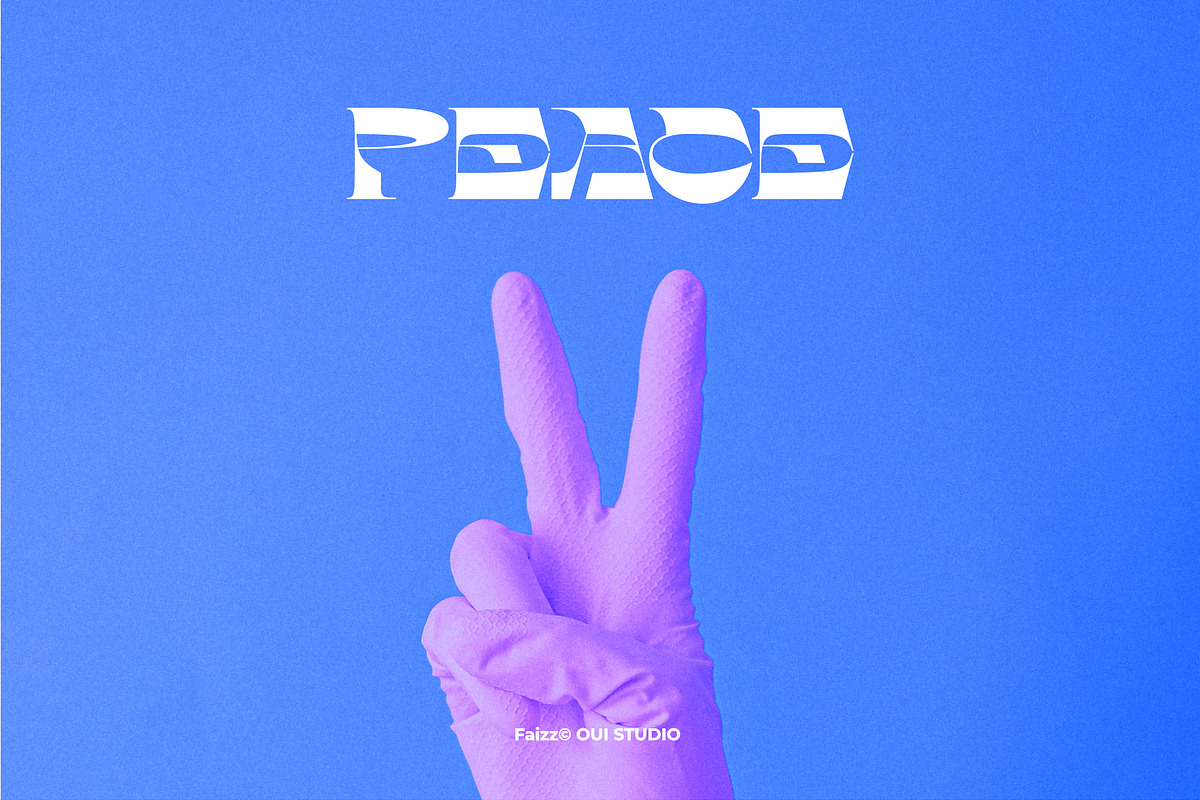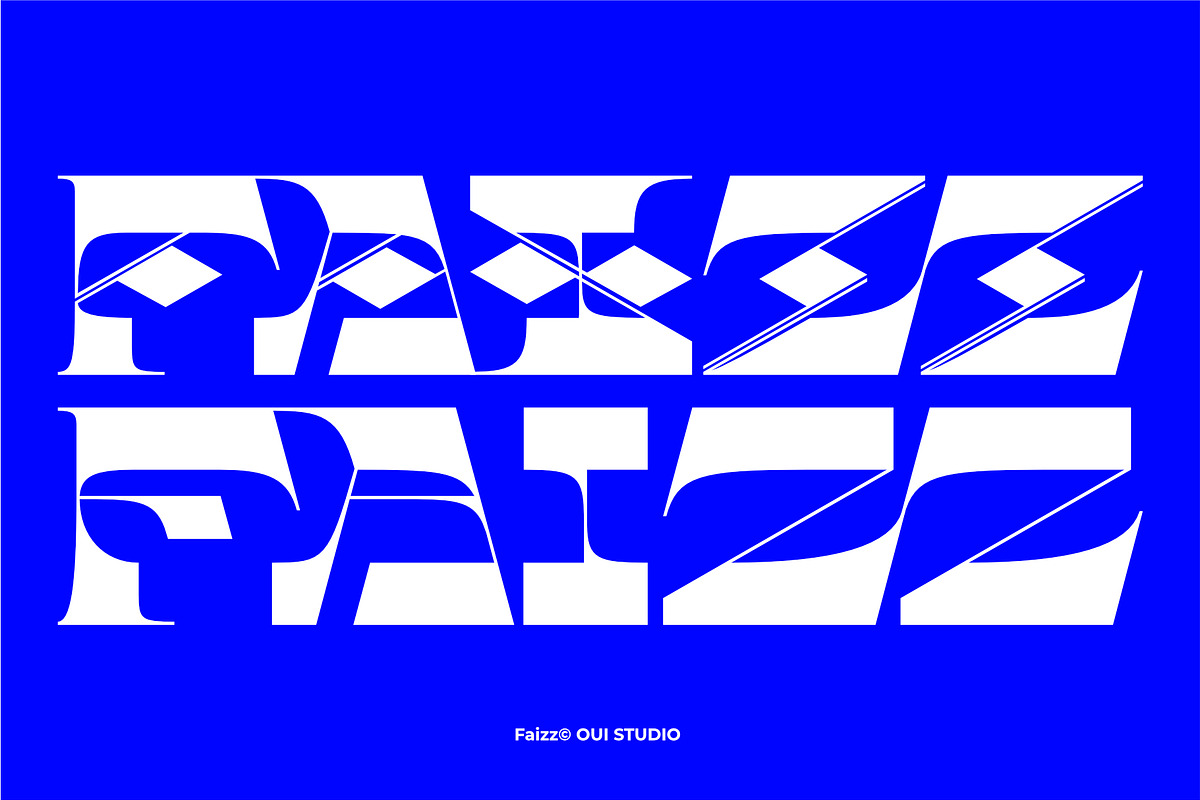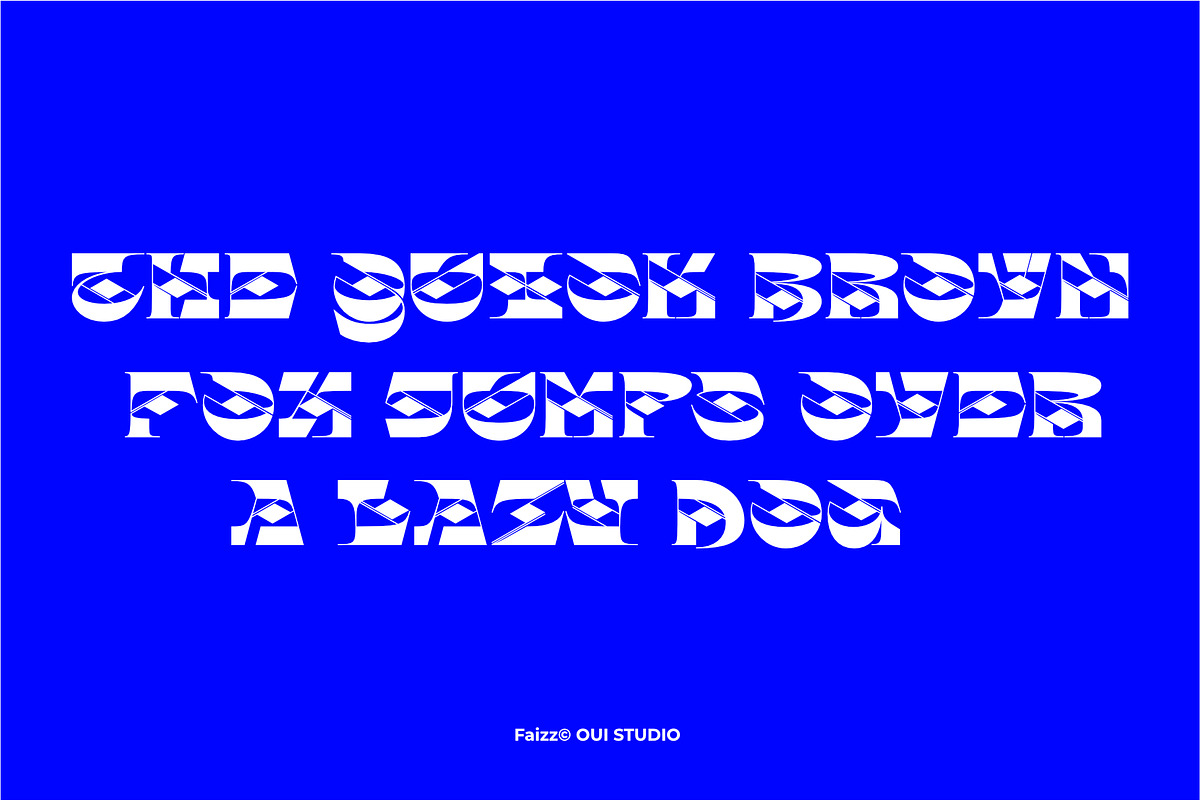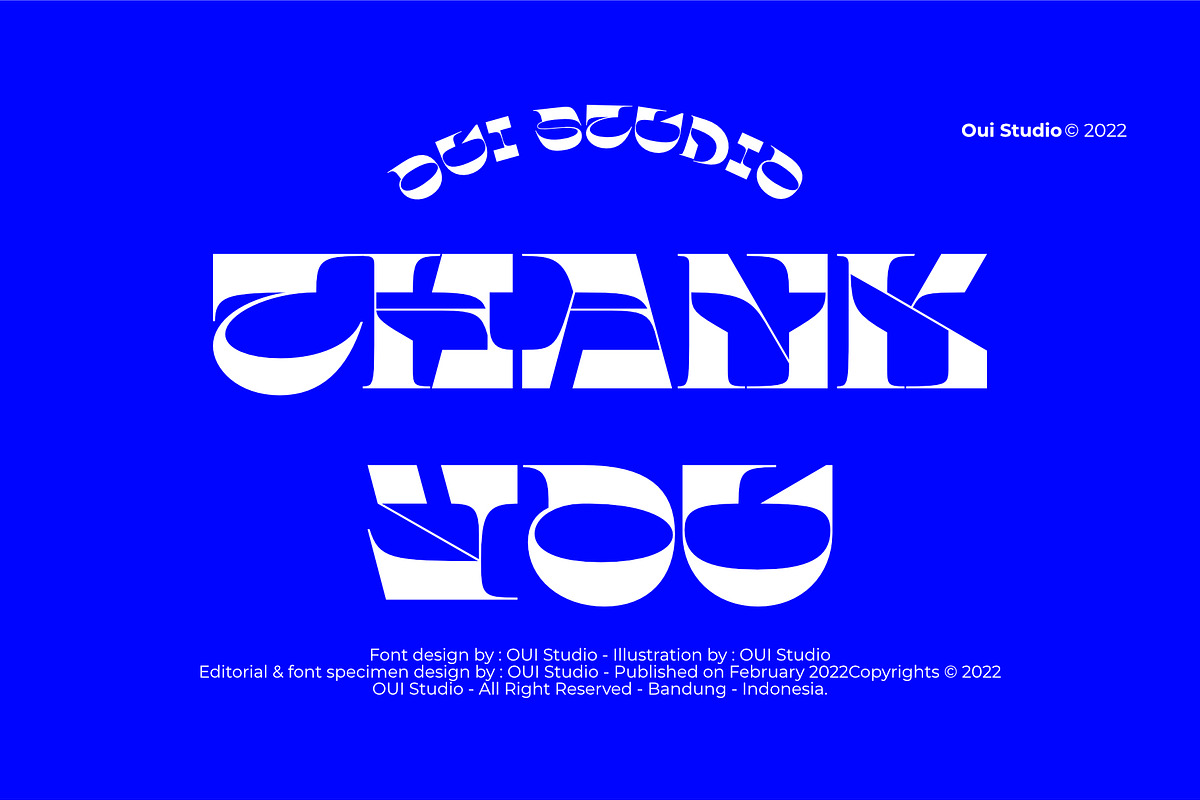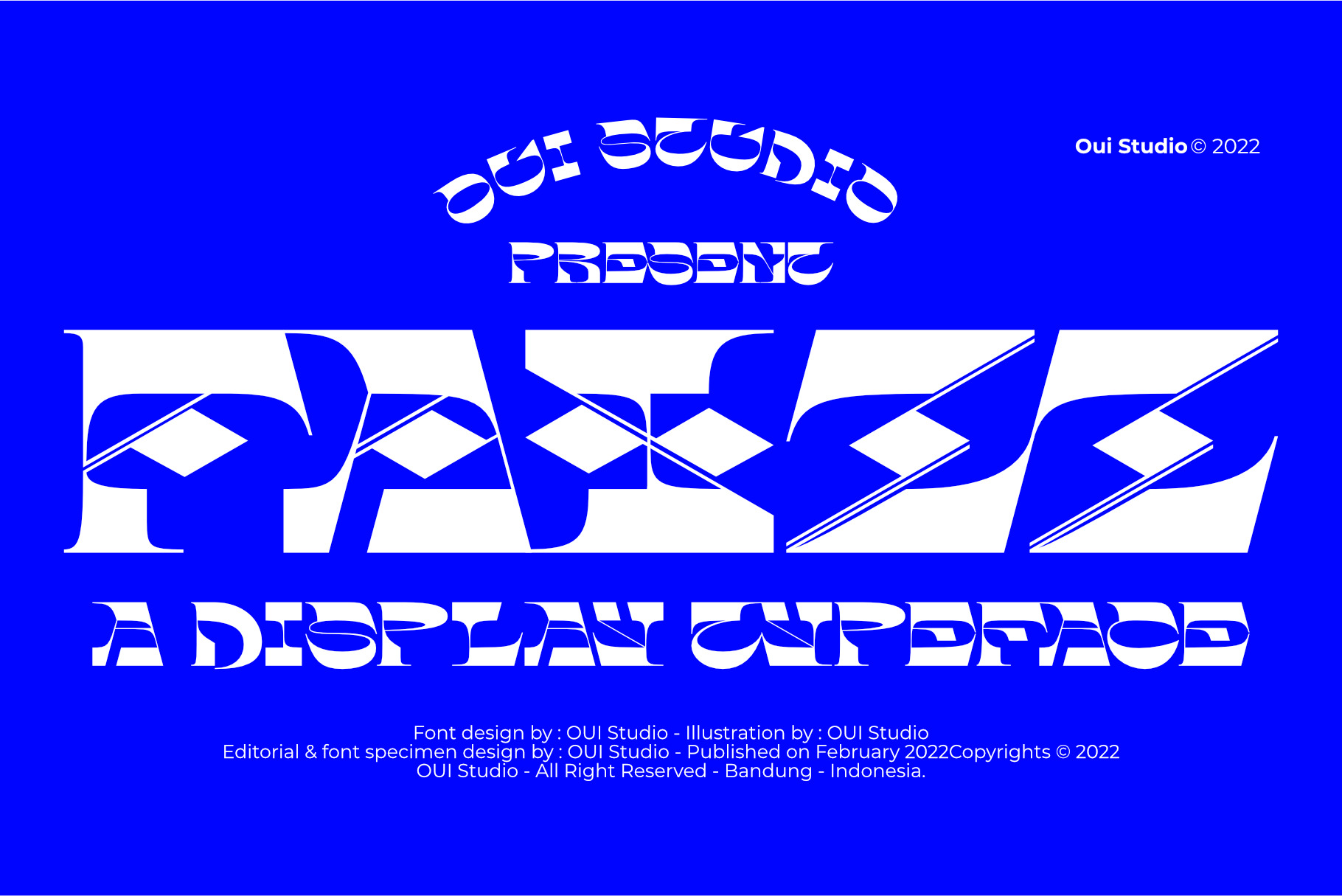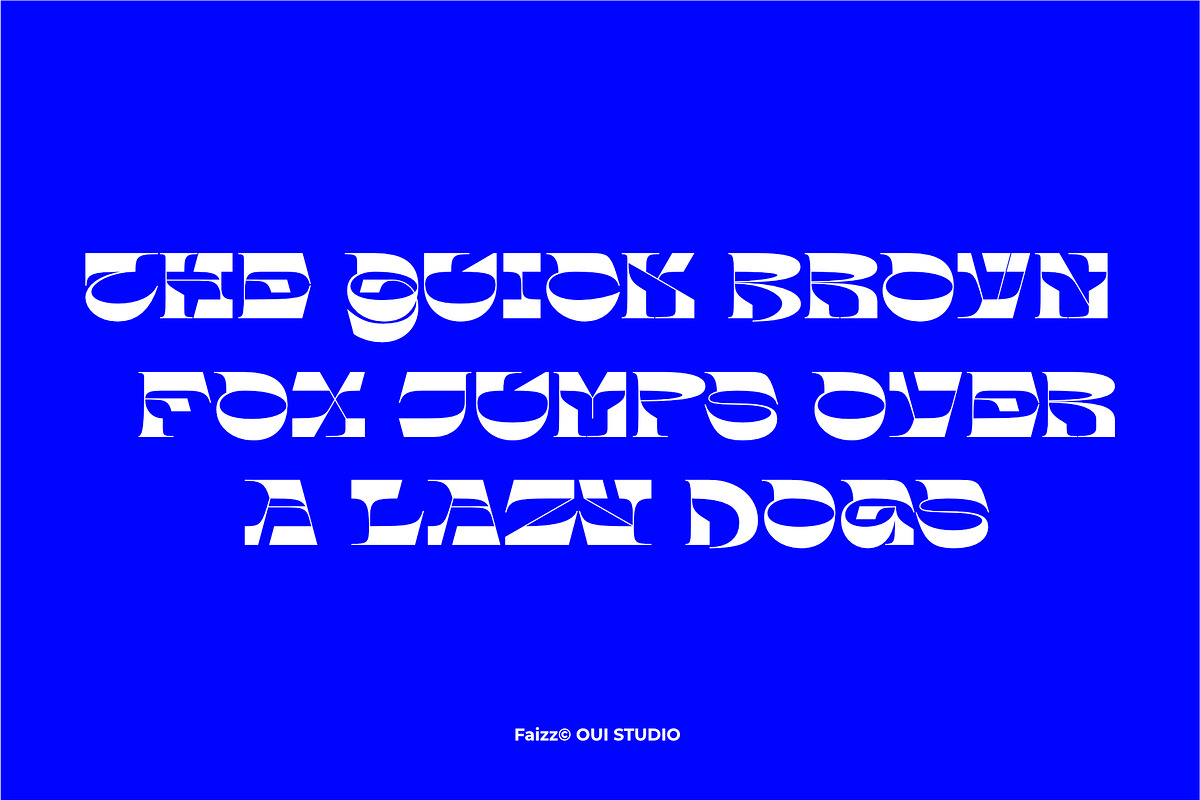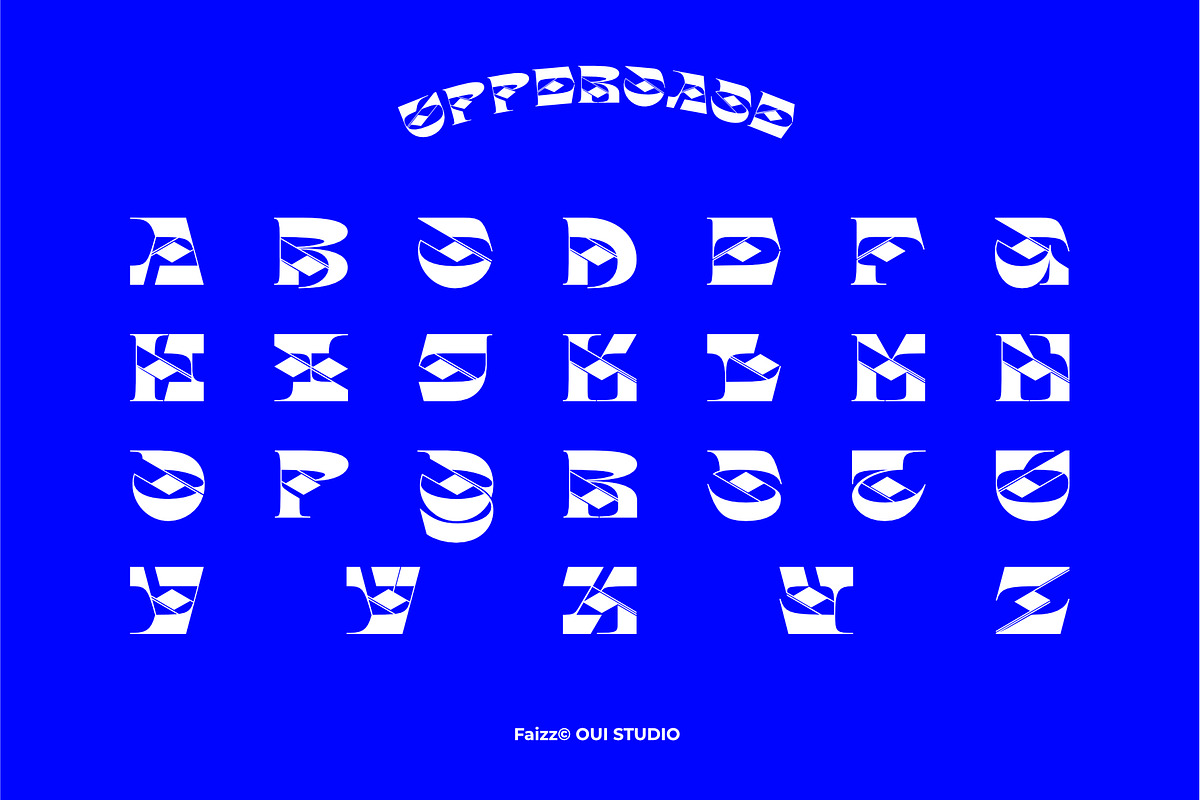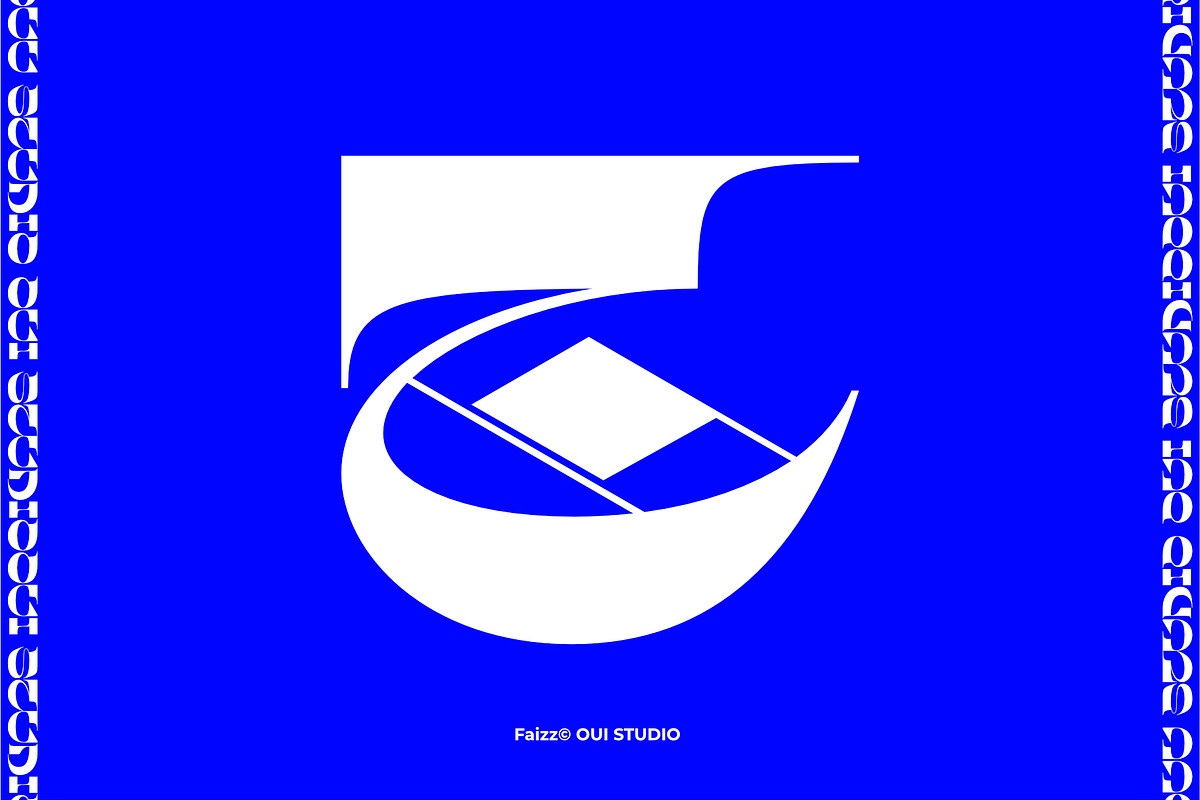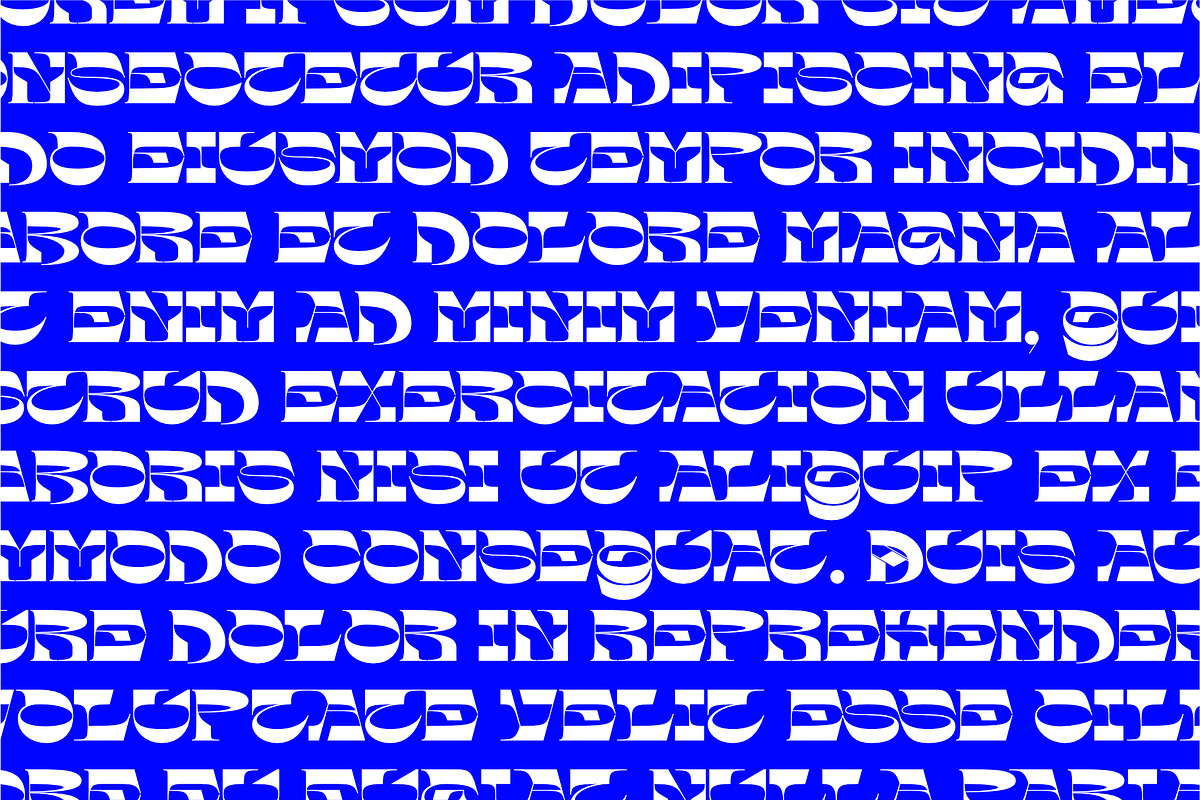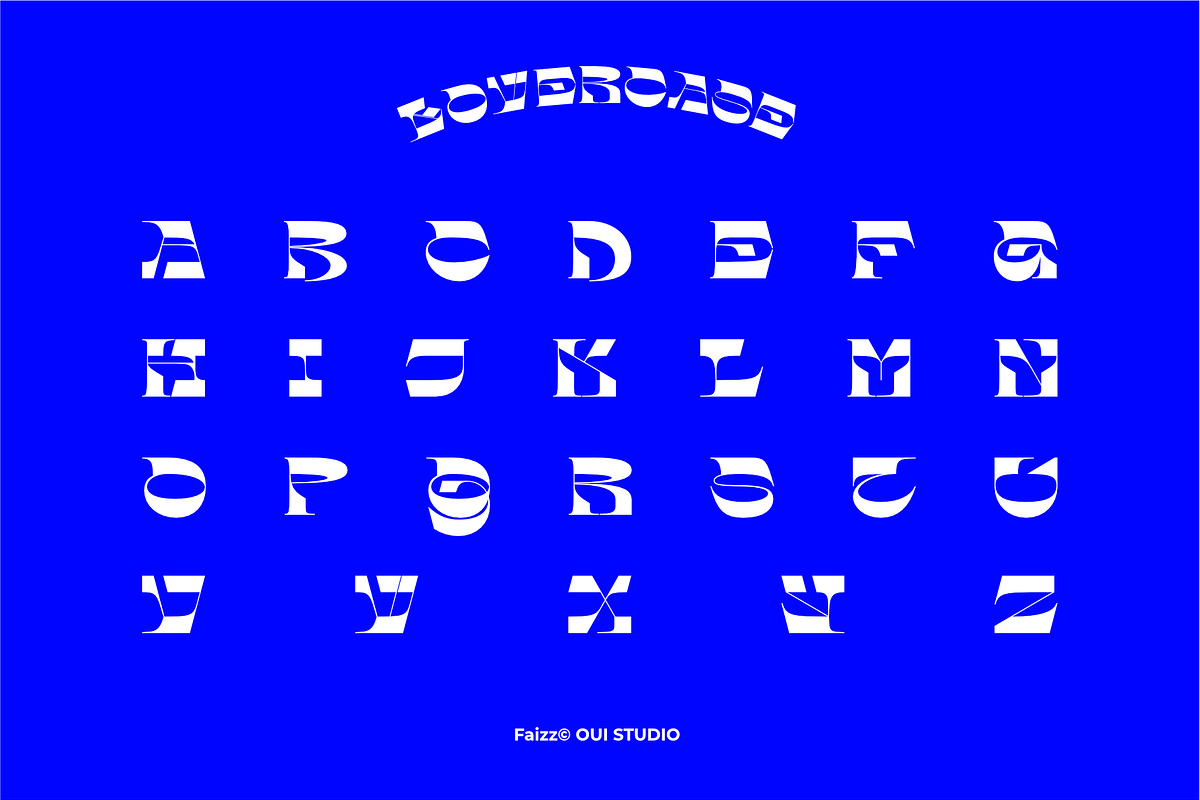
Faizz Display Font
Hello, friends! The 'Faizz' font is coming, a display font with a modern touch of Old English vibes. Faizz is very inspired by Old English type font. It's perfect for branding, logo, packaging, header, title, t-shirt design, poster, band, music, album, artwork, etc. Faizz has a diagonal consistency in every glyph. The uppercase and lowercase in Faizz have their own uniqueness so it is like a font duo. Thank you!